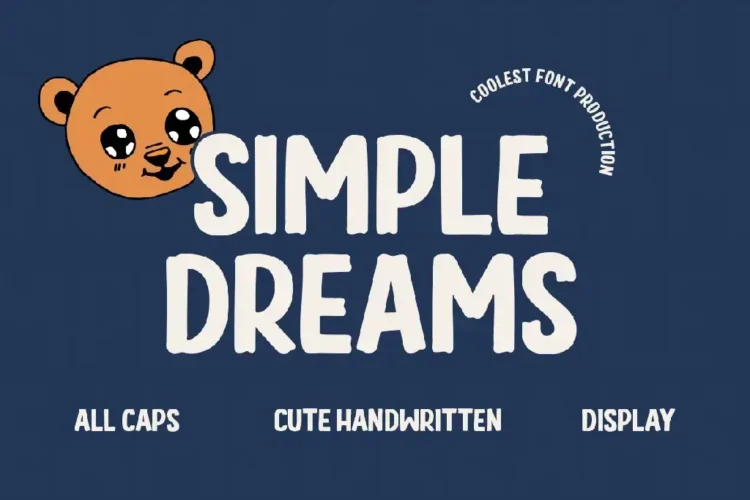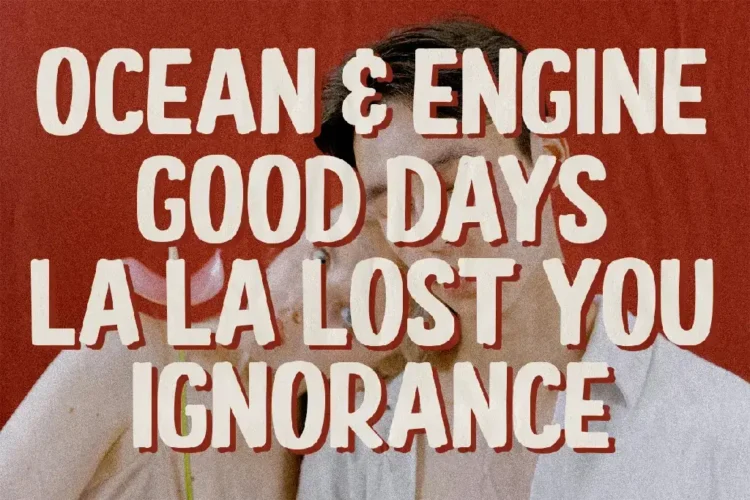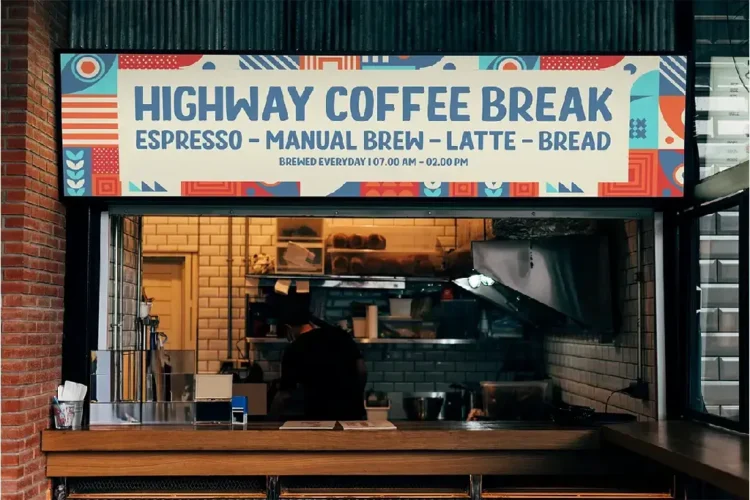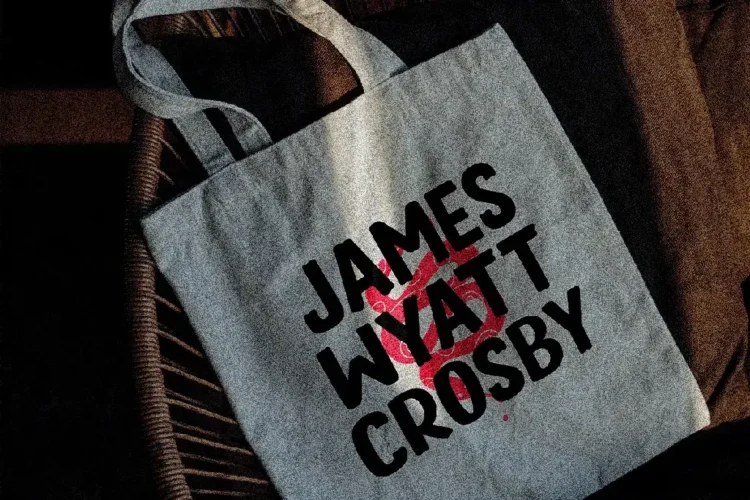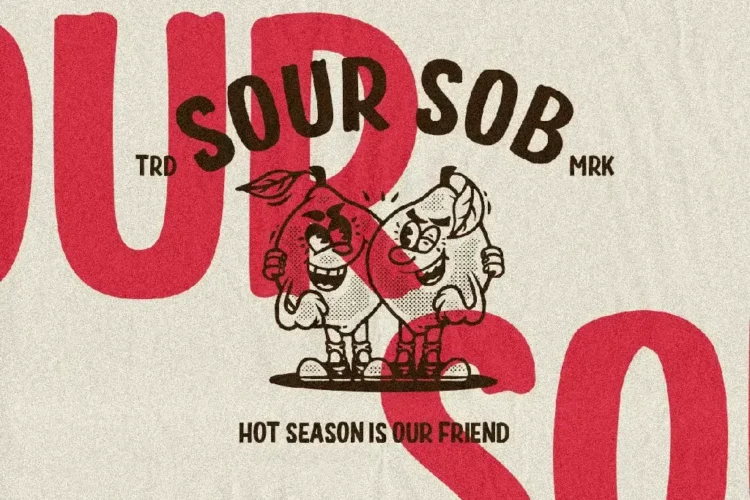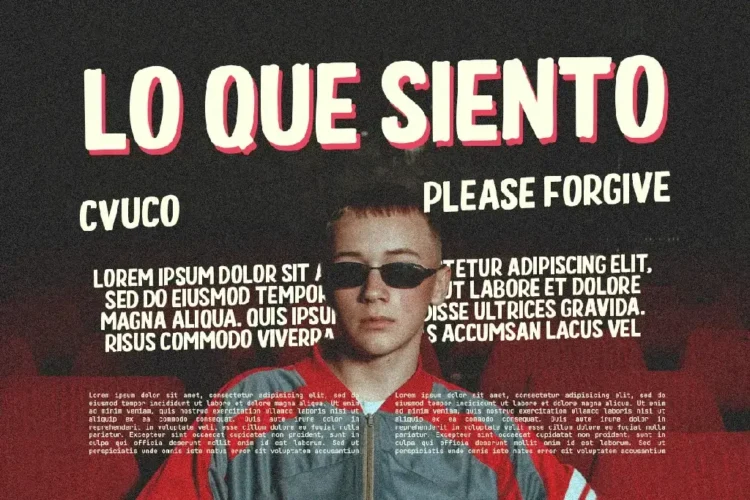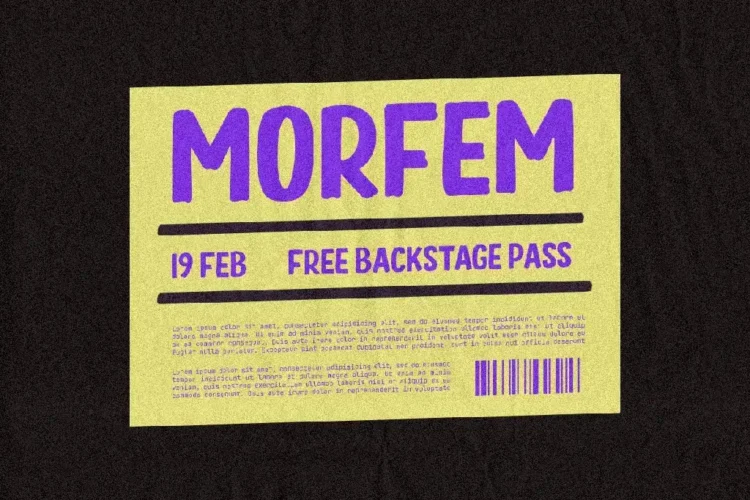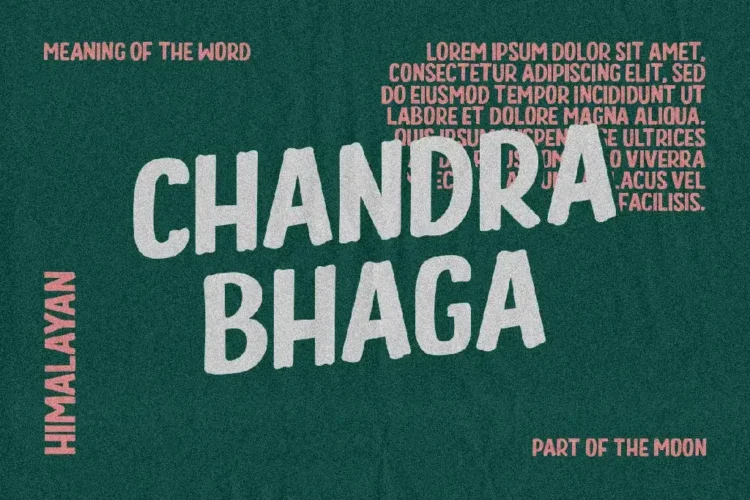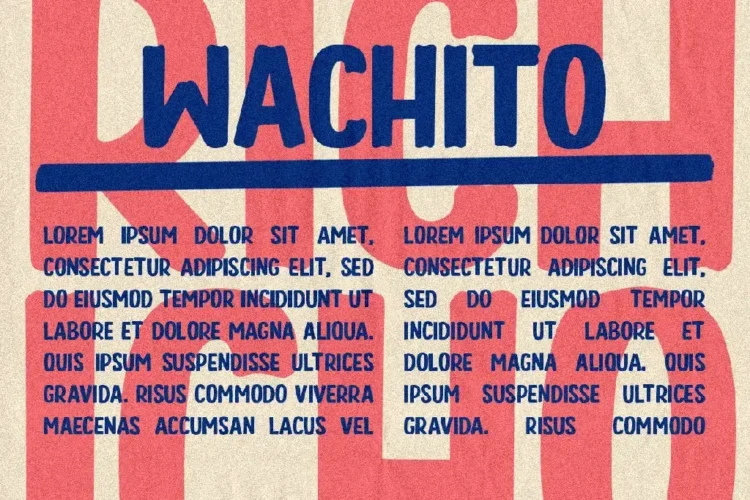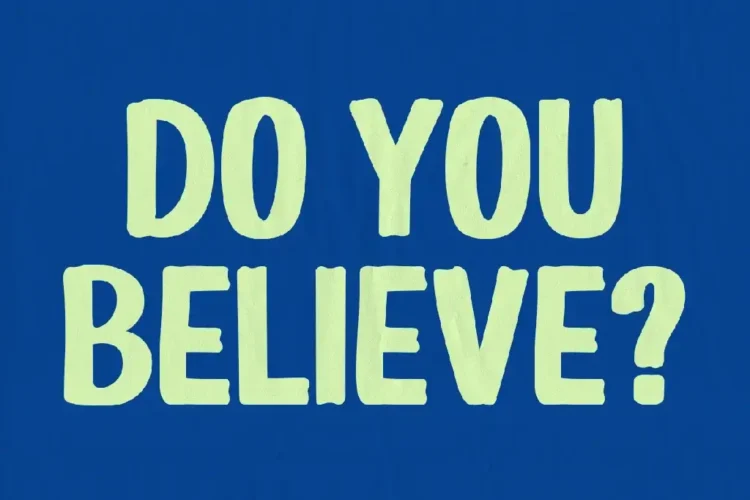
Simple Dreams Font – Cute Handwritten Display Font for Modern Branding & Posters
Simple Dreams Font is a playful handwritten display font that combines a bold, modern aesthetic with a touch of cuteness. Perfectly crafted for creative projects, this fancy font adds personality and charm to any design. Whether you’re looking for a branding font, a striking poster font, or a versatile logo font, Simple Dream Font is the perfect choice to elevate your typography.
With its smooth all-caps style, this font blends casual vibes with professional readability, making it suitable for both digital and print designs. If you’re searching for modern fonts that bring warmth and character, this typeface is a must-have in your collection.
Simple Dreams Font Perfect for :
Simple Dreams Font is versatile and works beautifully for :
- Branding & Identity (logos, packaging, business cards)
- Posters & Flyers (music events, children’s campaigns, lifestyle promotions)
- Social Media Graphics (Instagram quotes, YouTube thumbnails)
- Merchandise & Apparel (tote bags, t-shirts, mugs)
- Editorial Use (magazine covers, creative headlines)
Bring your ideas to life with Simple Dreams Font – the ultimate mix of modern charm and handwritten elegance.